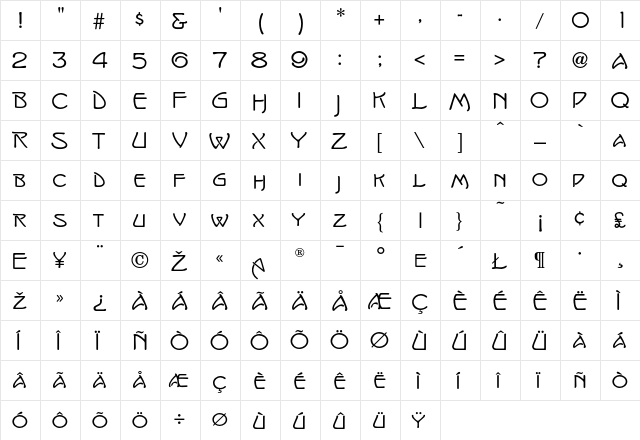
Isadora Regular
Design Context for Isadora Typeface
Isadora is a composed and adaptable typeface that performs quietly and consistently across a wide range of design contexts.
Pro Tip: Pair Isadora with a font of contrasting weight or personality to build a more expressive typographic hierarchy.